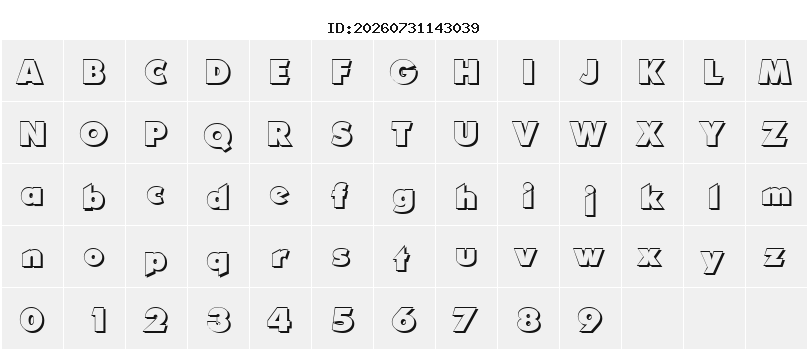
LiamBeckerShadow-Heavy Preview
About LiamBeckerShadow-Heavy.ttf
LiamBeckerShadow-Heavy.ttf is a modern, elegant sans-serif font designed for ultimate readability and visual harmony. Perfect for branding, headlines, web design, and print materials.